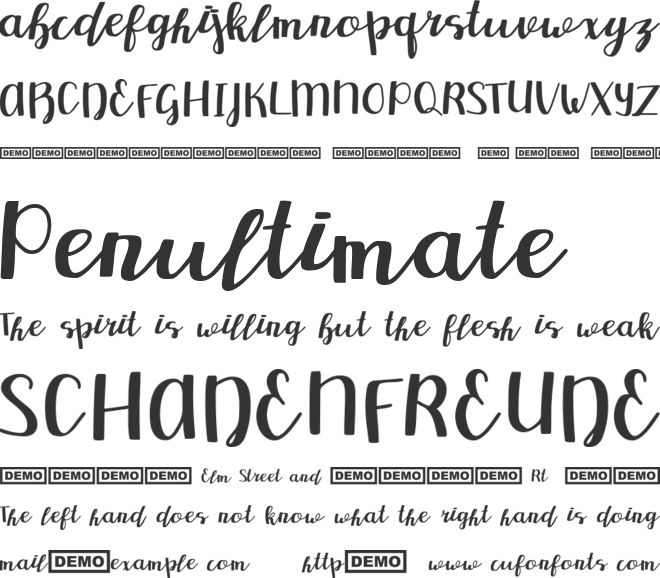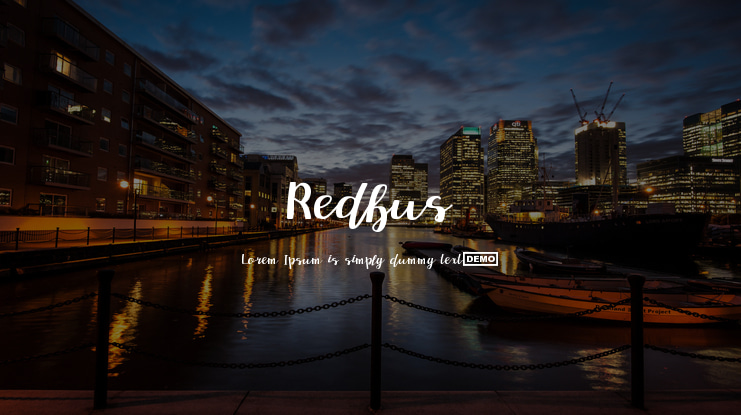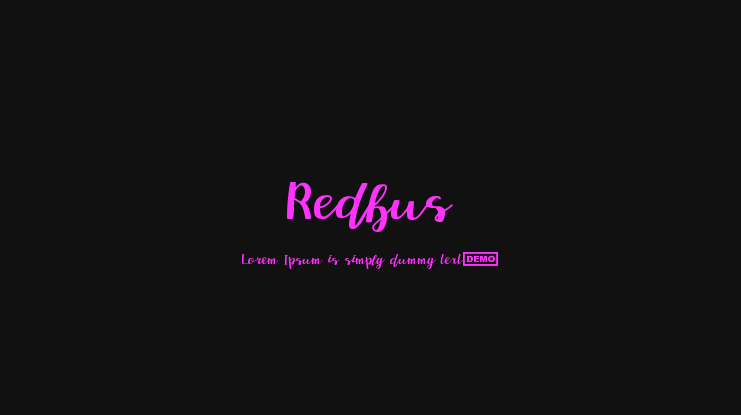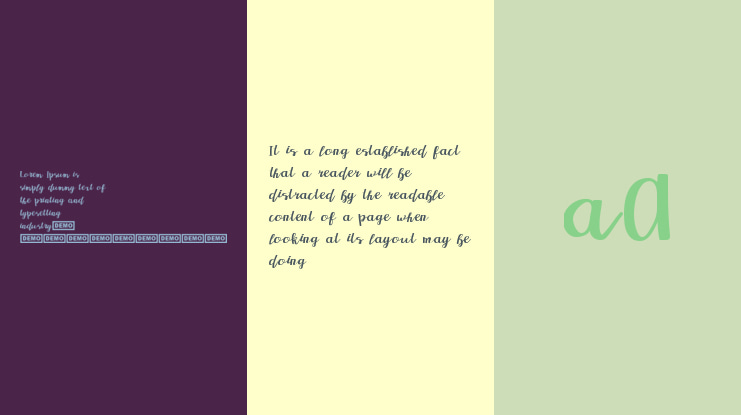
Redbus Font
I'm glad to introduce you my new font Redbus.
Redbus will help you to decorate any of your projects in a nice attractive style. It's a perfect choice for your design needs!
Full version of Redbus comes with uppercase, lowercase, standard punctuation, numerals and special letters for most of the European languages.